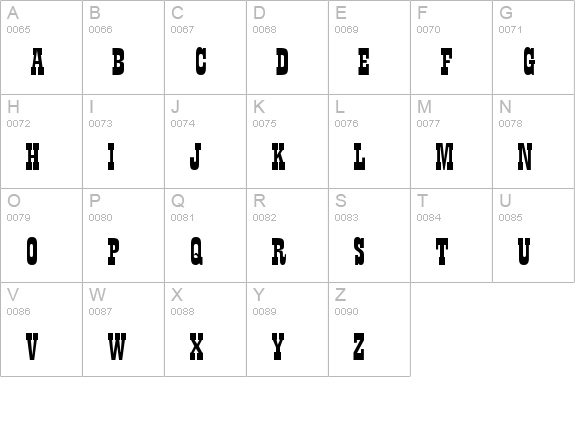
Billboard 11 Normal is the standard, neutral variant in the Billboard typeface family \xE2\x80\x94 well suited to general body text, paragraphs, and standard typographic work.
Billboard 11 Normal font is a versatile and modern typeface that exudes a sleek and professional vibe. With its clean lines and sharp edges, this font is perfect for a wide range of design projects, from logos to headlines to posters. Its bold and eye-catching appearance commands attention and leaves a lasting impression. The best part? Billboard 11 Normal font is available for free download at FontsMarket.com. Whether you're a graphic designer looking to add a fresh new font to your collection or a business owner in need of a stylish font for your branding, this font is sure to meet your needs. Don't miss out on the opportunity to enhance your designs with this fantastic font, download it today and elevate your projects to the next level.